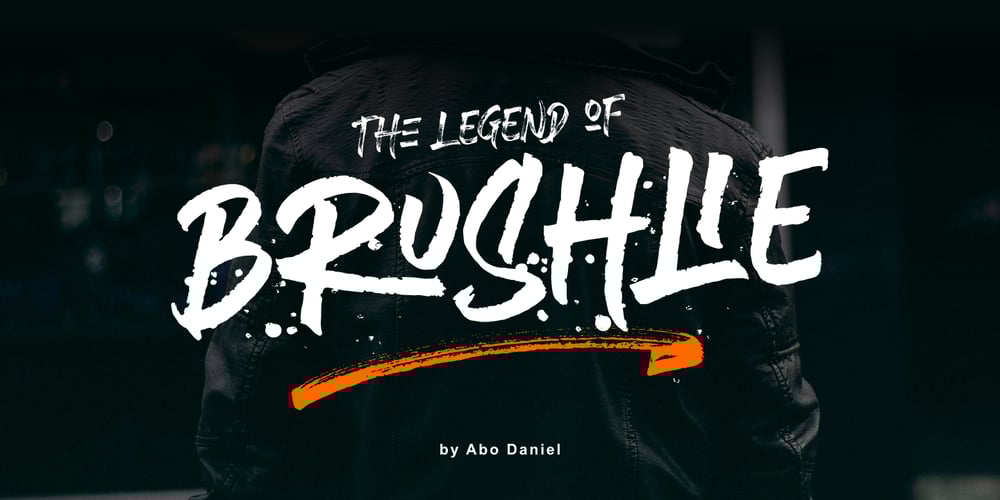
Brushlie Font Family was designed by Abo Daniel and published by Abo Daniel. Brushlie contains 3 styles and family package options. Brushlie is urban font family that made with real brush and is ideal for logos, apparel, quotes, product packaging, or anything which needs a font with a natural brush taste. There are available 2 version – Brush – Solid and the swash make it compete Even though Brushlie is an uppercase font, the lowercase characters will give alternate for uppercase characters. Thank You Abo Daniel